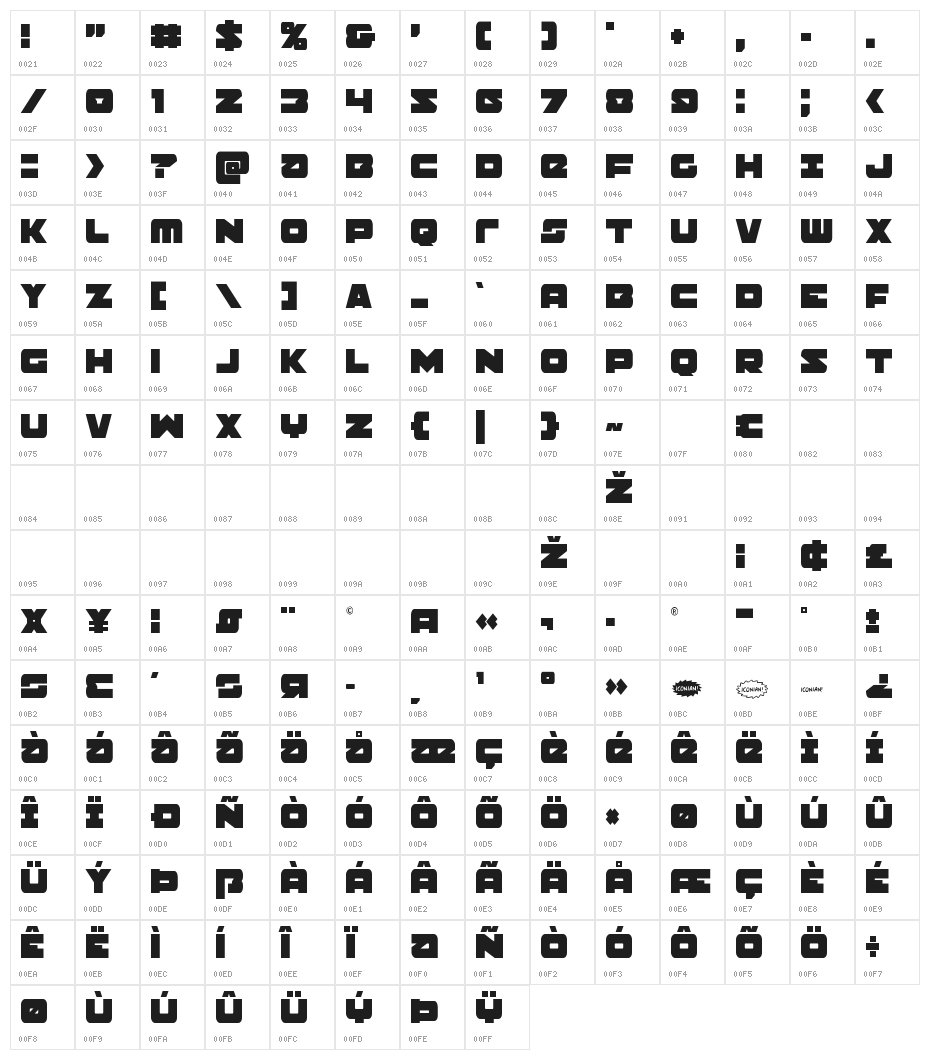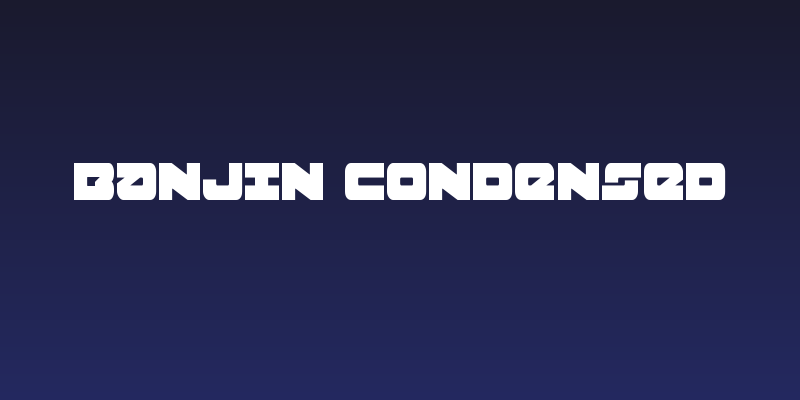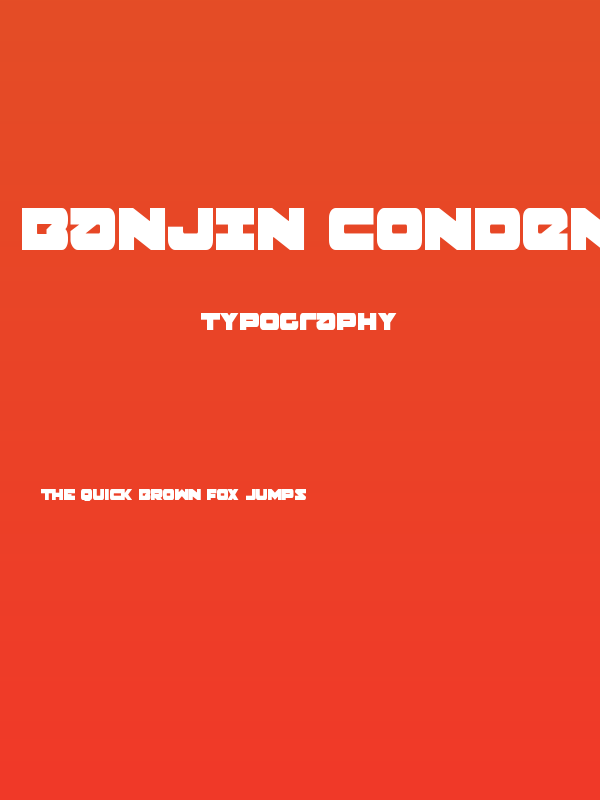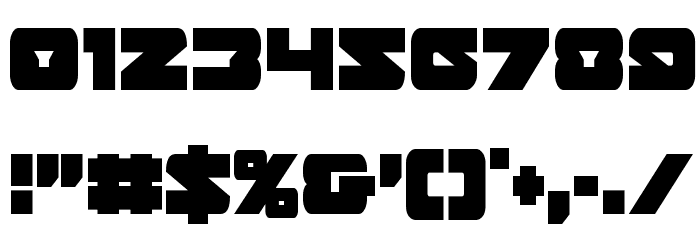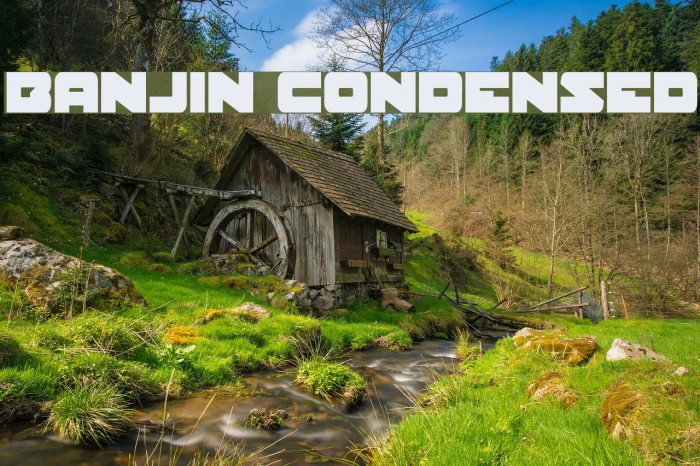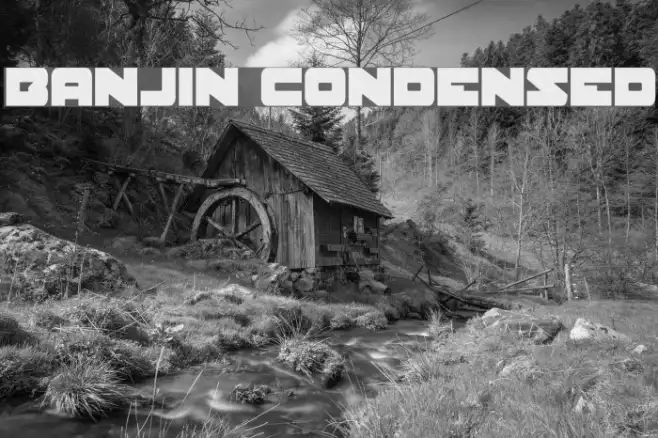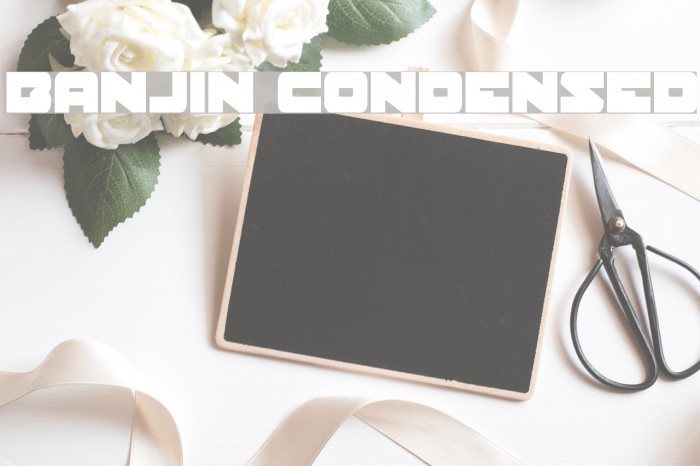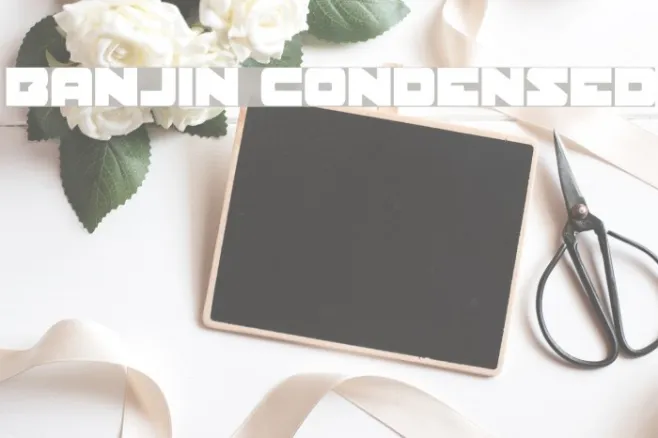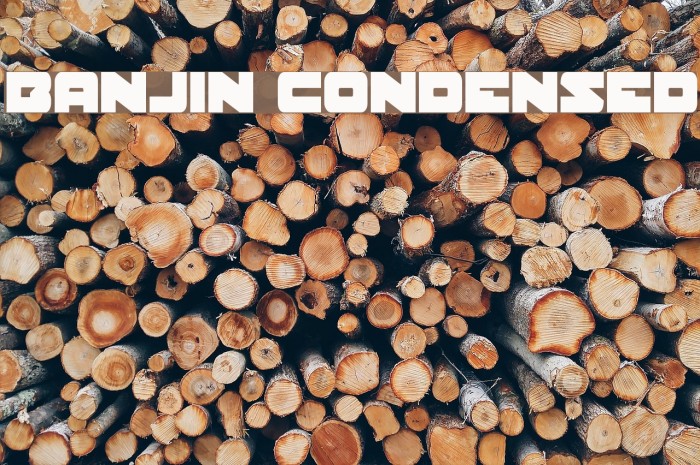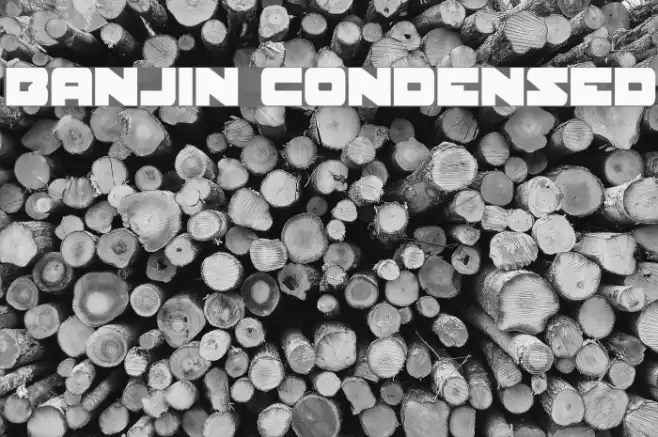
Banjin Condensed Font
Banjin Condensed Description
This font features a bold and geometric design with a condensed structure. The characters are blocky and angular, giving it a futuristic and industrial feel. The uppercase and lowercase letters maintain a consistent style, with sharp edges and a uniform thickness throughout. The numbers and special characters follow the same design principles, ensuring a cohesive look across all elements. The font's strong presence makes it ideal for attention-grabbing headlines and impactful designs.
| Overall Style | Futuristic, Industrial |
| Proposed Projects | Ideal for sci-fi themed posters, video game graphics, branding for tech companies, and any project requiring a modern, industrial aesthetic. |